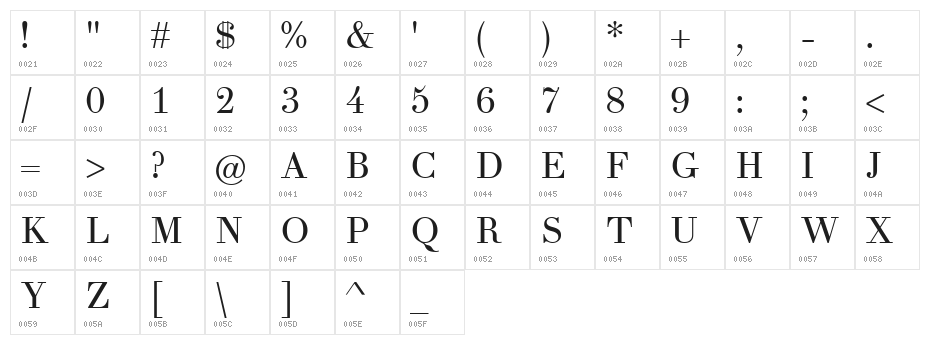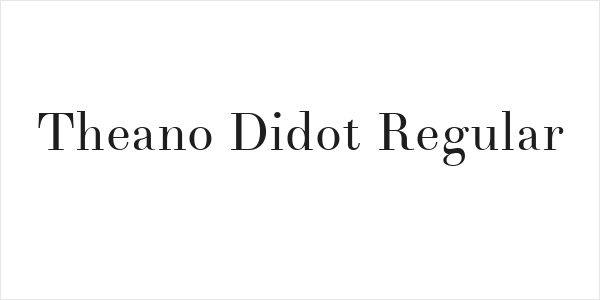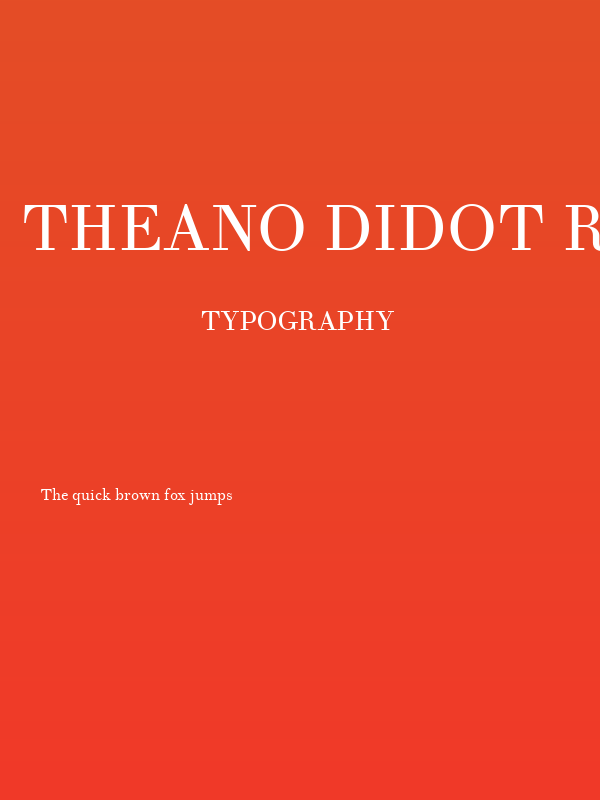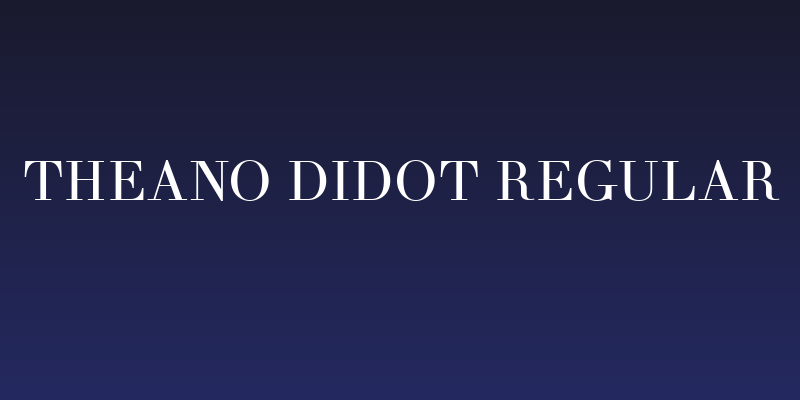
Theano Didot Regular Font
Theano Didot Regular Description
This font exudes elegance and sophistication with its high contrast between thick and thin strokes, characteristic of the Didot style. The serifs are fine and sharp, adding a touch of refinement to each character. The uppercase letters stand tall with a stately presence, while the lowercase letters maintain a graceful flow. The numerals are well-proportioned, complementing the overall aesthetic. Special characters are designed with the same attention to detail, ensuring consistency throughout the typeface.
| Proposed Projects | Ideal for luxury branding, editorial design, fashion magazines, and high-end product packaging. |